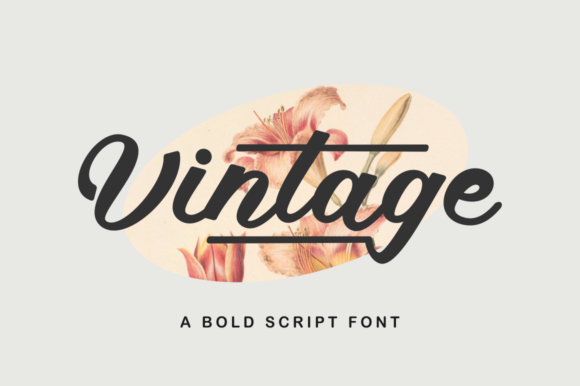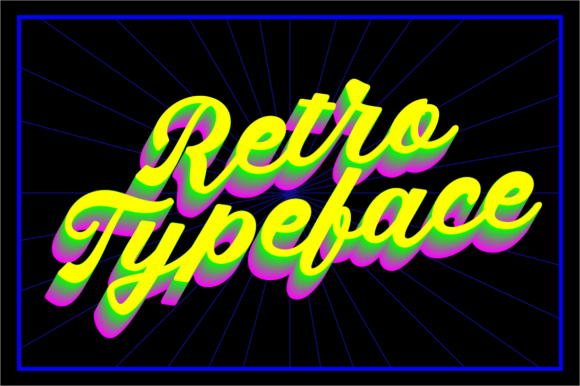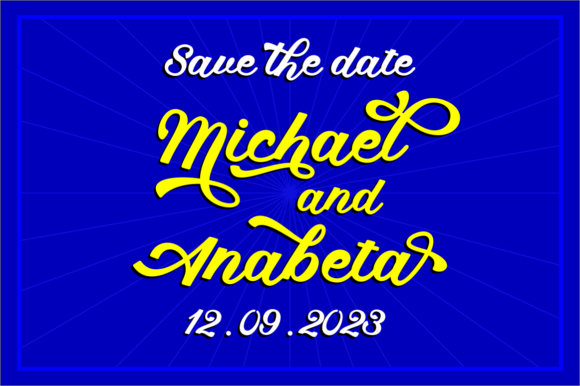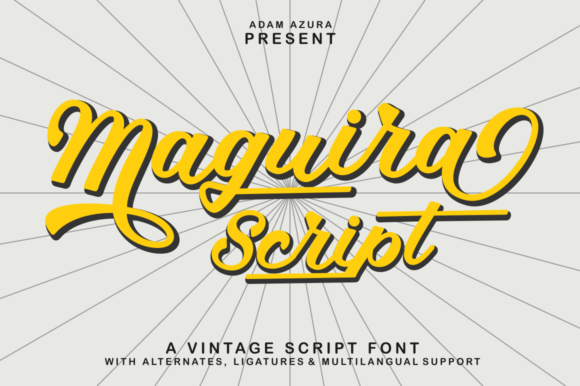
Introduction to Maguira Script Font
Maguira Script is a retro and bold script font.
It is PUA encoded which means you can access all of the beautiful glyphs and swashes with ease This font reads as strong, confident, and dynamic and can add tons of nostalgic character to your designs.
Maguira Script Font offers exceptional quality and versatility, making it a valuable addition to your design toolkit. Whether you’re creating for personal projects or commercial use, Maguira Script Font delivers professional results.